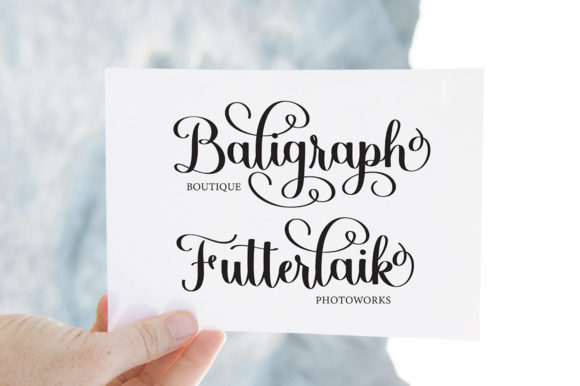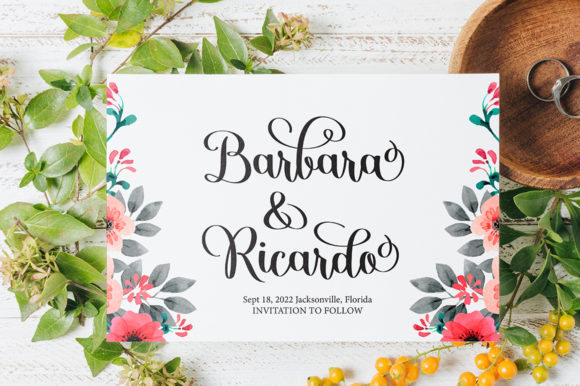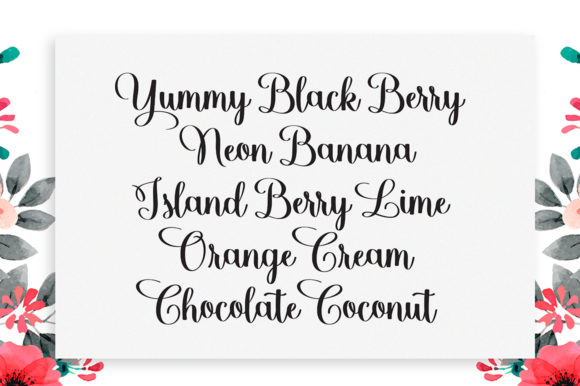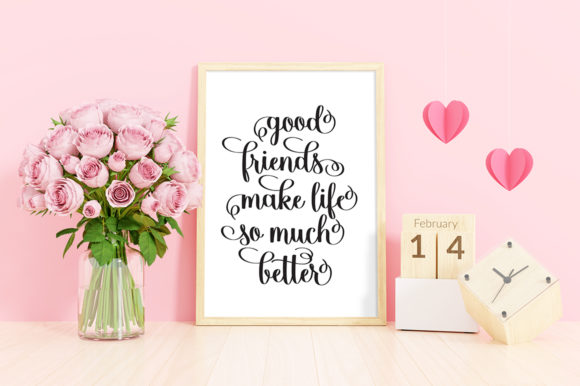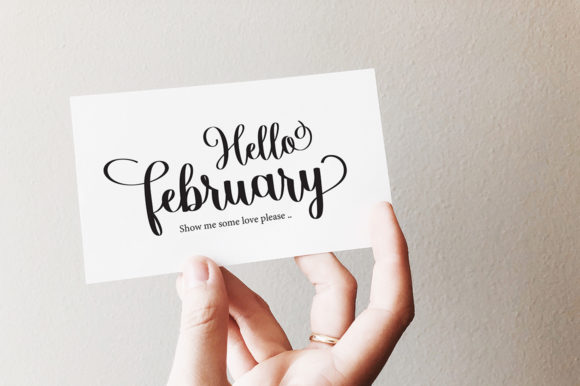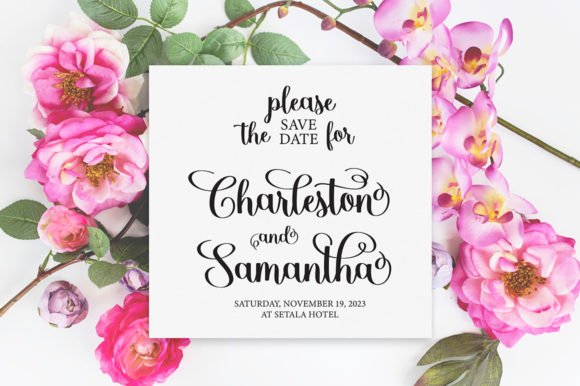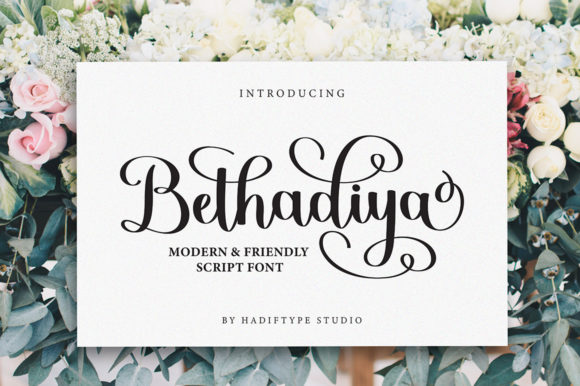
Bethadiya Font: Elevate Your Creations with this Organic and Beautiful Decorative Font
Are you a designer or crafter looking for a unique and beautiful font to add a touch of elegance to your creations? Look no further than the Bethadiya Font. This stunning decorative font is perfect for anyone who wants to add a little extra something special to their designs. In this article, we’ll take a closer look at the Bethadiya Font, its features, and how it can elevate your designs.
What is Bethadiya Font?
Bethadiya is an organic and beautiful decorative font that features lovely ornaments. This font is perfect for designers and crafters who want to add a touch of whimsy and elegance to their creations. Whether you’re working on a branding project, a wedding invitation, or a craft project, Bethadiya is an incredibly versatile font that can be used for a wide range of applications.
Key Features of Bethadiya Font
So, what makes Bethadiya Font so special? Here are just a few of its key features:
• Organic and Decorative: Bethadiya Font features a unique, organic design that’s perfect for adding a touch of elegance to your creations.
• Lovely Ornaments: This font includes a range of lovely ornaments that can be used to add a little extra something special to your designs.
• PUA Encoded: Bethadiya is PUA encoded, which means you can access all of the glyphs and swashes with ease.
• Incredibly Versatile: Whether you’re working on a branding project, a wedding invitation, or a craft project, Bethadiya is a versatile font that can be used for a wide range of applications.
How Bethadiya Font Can Elevate Your Designs
So, how can Bethadiya Font elevate your designs? Here are just a few examples:
• Add a Touch of Elegance: With its unique, organic design and lovely ornaments, Bethadiya Font is perfect for adding a touch of elegance to your creations.
• Stand Out from the Crowd: In a world where so many designs look the same, Bethadiya Font can help you stand out from the crowd and make your designs truly unforgettable.
• Perfect for Branding: Whether you’re working on a branding project or just want to create a unique identity for your business, Bethadiya Font is a great choice.
• Easy to Use: With its PUA encoding, Bethadiya Font is easy to use and can be accessed with just a few clicks.
Who is Bethadiya Font for?
Bethadiya Font is perfect for:
• Designers: Whether you’re a professional designer or just starting out, Bethadiya Font is a great addition to your font library.
• Crafters: If you love crafting and making things, Bethadiya Font is a great choice for adding a touch of elegance to your projects.
• Small Business Owners: If you’re looking for a unique and memorable font for your branding or marketing materials, Bethadiya Font is a great choice.
Font Name Bethadiya Font
Author hadiftype
In conclusion, Bethadiya Font is a beautiful and versatile decorative font that’s perfect for designers, crafters, and small business owners. With its unique, organic design and lovely ornaments, this font is sure to elevate your creations and help you stand out from the crowd. And with its PUA encoding, it’s easy to use and can be accessed with just a few clicks. So why wait? Add Bethadiya Font to your font library today and start creating stunning designs that will leave a lasting impression.